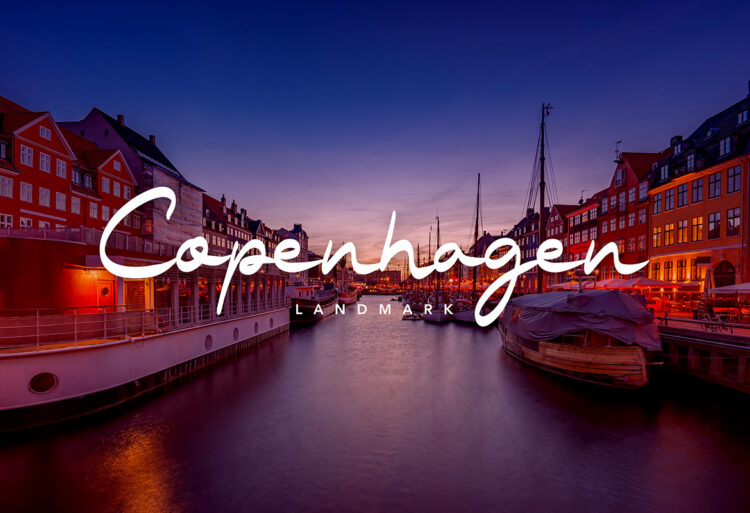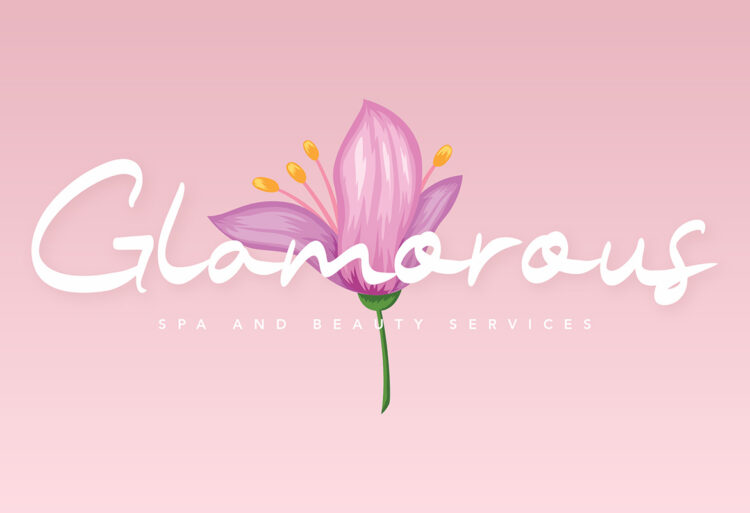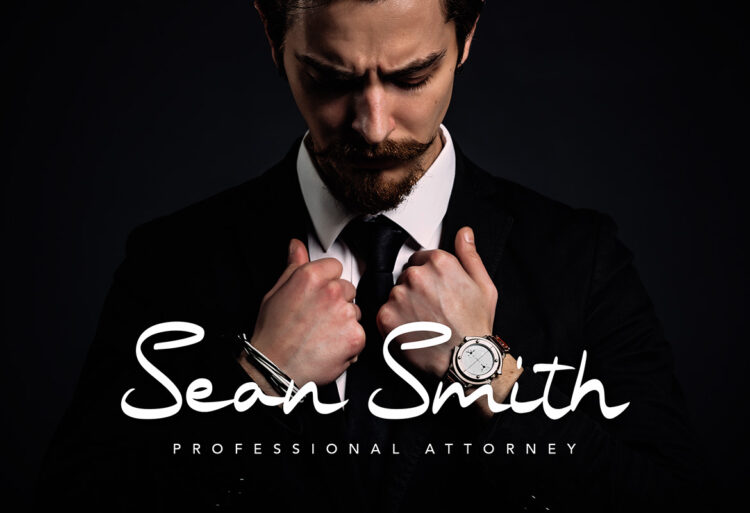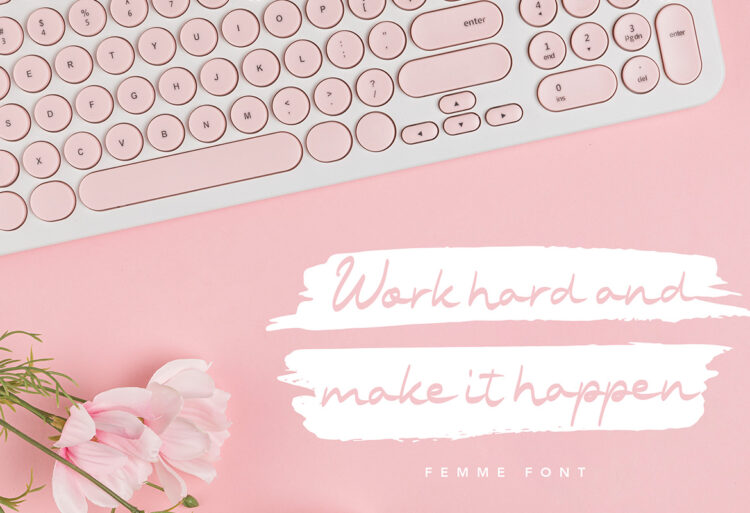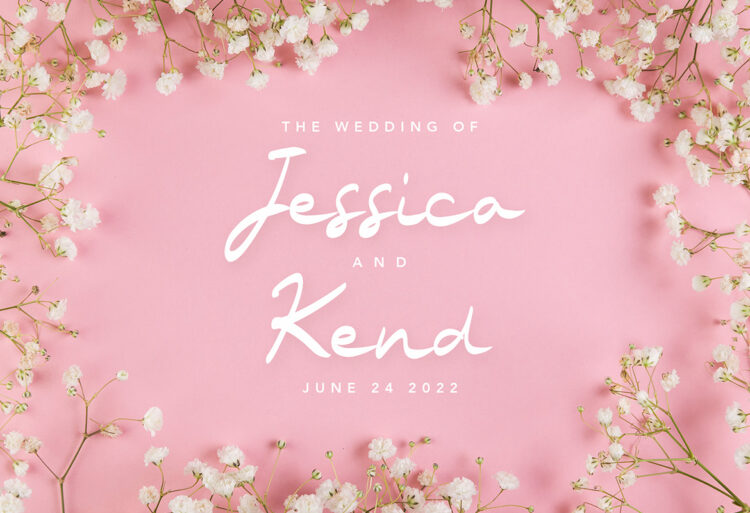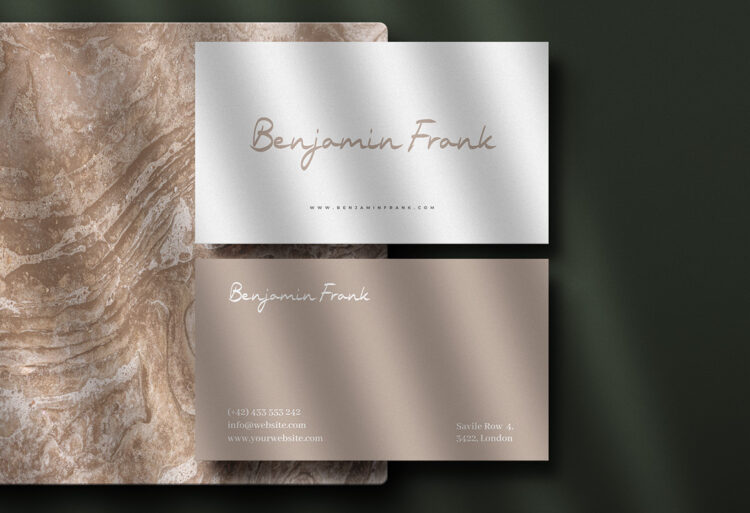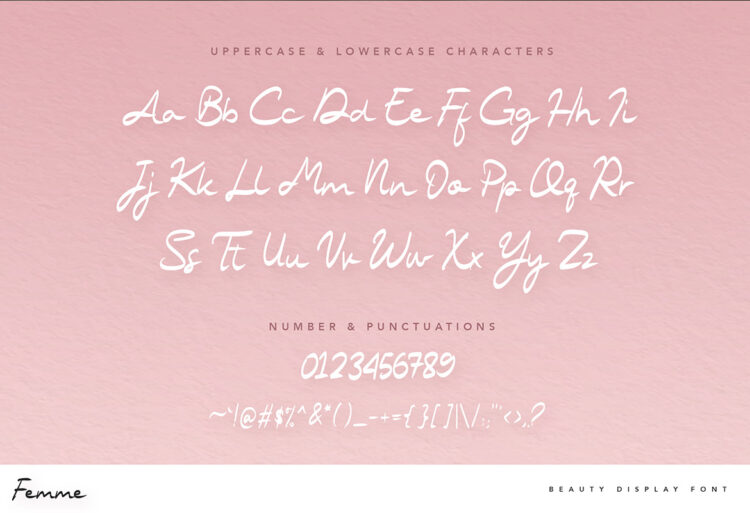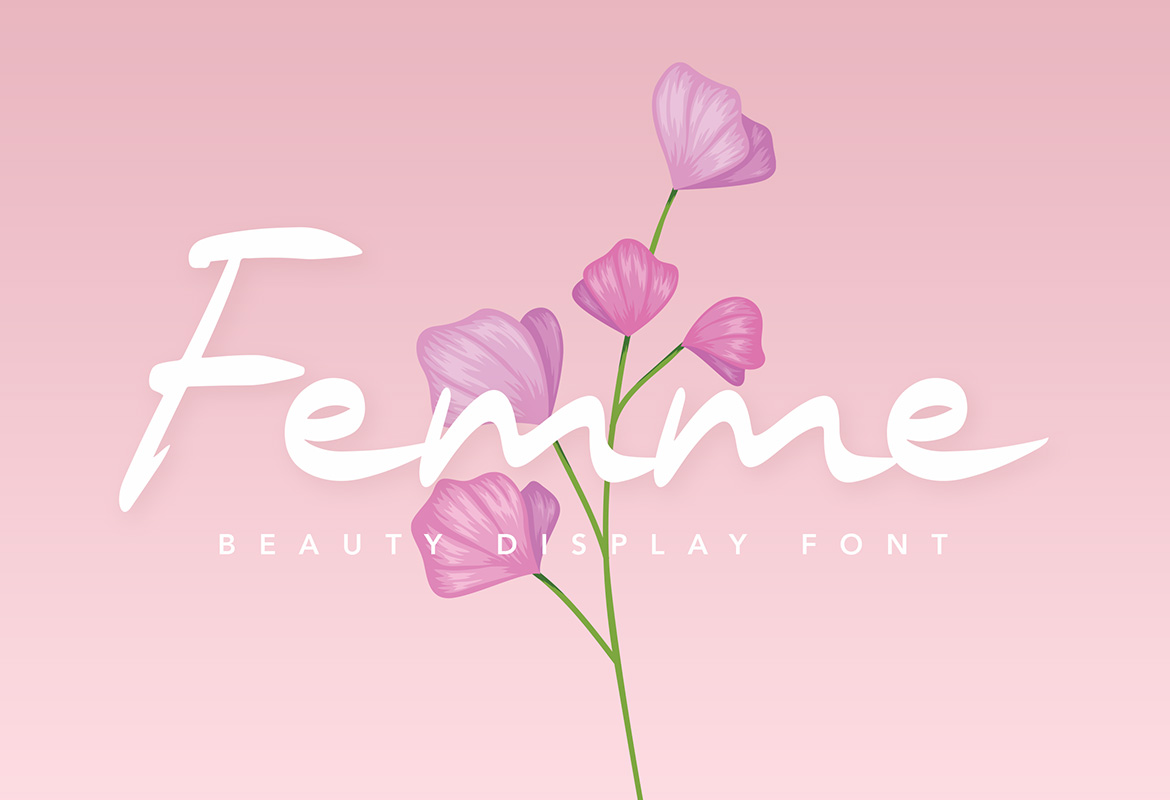
Be unbeatble and stunning in every way you can be by using Femme, an elegant, beauty display font that perfect for wedding invitation, letter, movie title, landmark, city business card and many more. With its beauty looks and modern style, you can use this font for stylish text overlay to any background images.
Every pack of Femme Elegant Beauty Display Font comes with uppercase and lowercase characters, number and punctuation, so it is suitable for basic or regular usage. This font is available in OTF format file and easy to install to your devices, wheter it is Mac or Windows OS.
- Uppercase & Lowercase letters
- Numbering and Punctuation